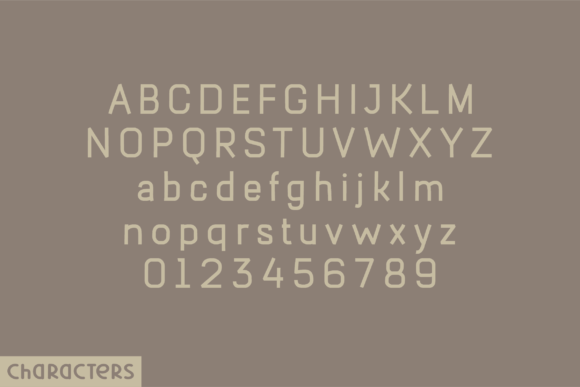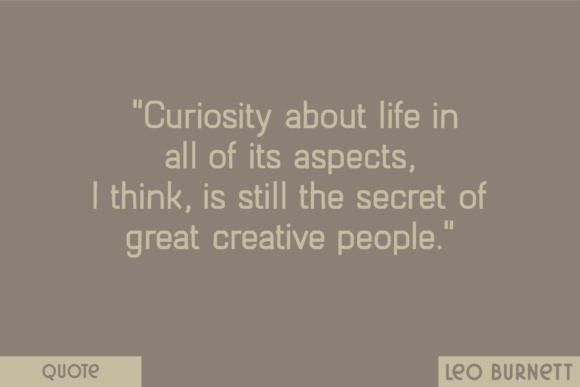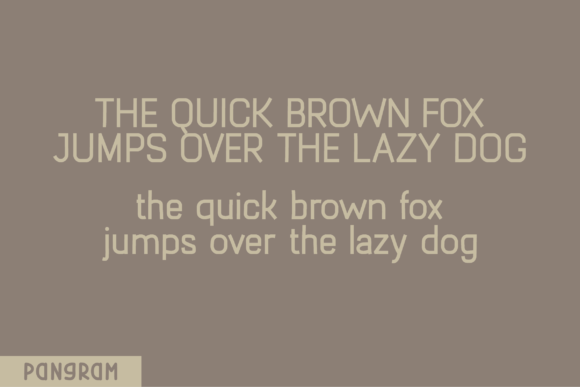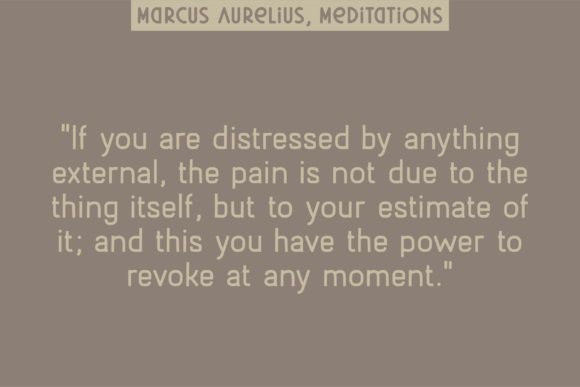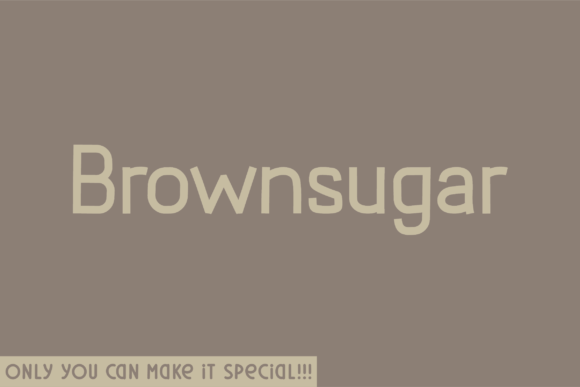
Brownsugar Font: A Unique Sans Serif Font for Creative Designs
In the world of typography, a good font can make all the difference in creating a visually appealing design. For designers and crafters, finding the perfect font that stands out from the rest can be a daunting task. However, if you’re looking for a font that is both unique and natural, look no further than the Brownsugar Font. In this article, we’ll explore what makes Brownsugar Font special and why it’s perfect for quotes, notes, tees, and any product design.
The Story Behind Brownsugar Font
Brownsugar Font is a natural sans serif font that has been carefully crafted to maintain its unique character. What sets it apart from other fonts is that it was created without changing a single node in each character’s indentation. This attention to detail has resulted in a font that is both interesting and distinctive. The font’s creator aimed to produce a font that would be perfect for a variety of design applications, and Brownsugar Font certainly delivers.
Key Features of Brownsugar Font
So, what makes Brownsugar Font so special? Here are some of its key features:
- Natural and Unique: Brownsugar Font has a natural, hand-crafted feel that sets it apart from other sans serif fonts. Its unique character indentation makes it perfect for designs that require a personal touch.
- Versatile: This font is incredibly versatile and can be used for a wide range of design applications, from quotes and notes to tees and product design.
- Easy to Read: Despite its unique character, Brownsugar Font is easy to read, making it perfect for body text and captions.
- High-Quality: Brownsugar Font is a high-quality font that is designed to produce crisp and clear results, even at small sizes.
Using Brownsugar Font in Your Designs
Brownsugar Font is perfect for a variety of design applications. Here are some ideas to get you started:
- Quotes and Notes: Use Brownsugar Font to add a personal touch to your quotes and notes. Its natural, hand-crafted feel makes it perfect for designs that require a human touch.
- T-Shirts and Merchandise: Brownsugar Font is a great choice for t-shirt designs and other merchandise. Its unique character and easy-to-read design make it perfect for bold statements.
- Product Design: Whether you’re designing packaging, labels, or other product materials, Brownsugar Font is a great choice. Its high-quality design and versatility make it perfect for a wide range of applications.
- Digital Designs: Brownsugar Font can also be used in digital designs, such as social media graphics, blog posts, and website headers.
Tips for Getting the Most Out of Brownsugar Font
To get the most out of Brownsugar Font, here are some tips:
- Experiment with Different Sizes: Brownsugar Font looks great at a variety of sizes, so don’t be afraid to experiment to find the perfect size for your design.
- Pair with Other Fonts: Brownsugar Font pairs well with other fonts, so try combining it with a serif font for a bold statement.
- Use it for Headings and Titles: Brownsugar Font is perfect for headings and titles, so use it to add a touch of personality to your designs.
In conclusion, Brownsugar Font is a unique and versatile sans serif font that is perfect for designers and crafters. Its natural, hand-crafted feel and attention to detail make it a standout font that can add a personal touch to any design. Whether you’re creating quotes, notes, tees, or product designs, Brownsugar Font is a great choice. So why not give it a try and see what amazing designs you can create?